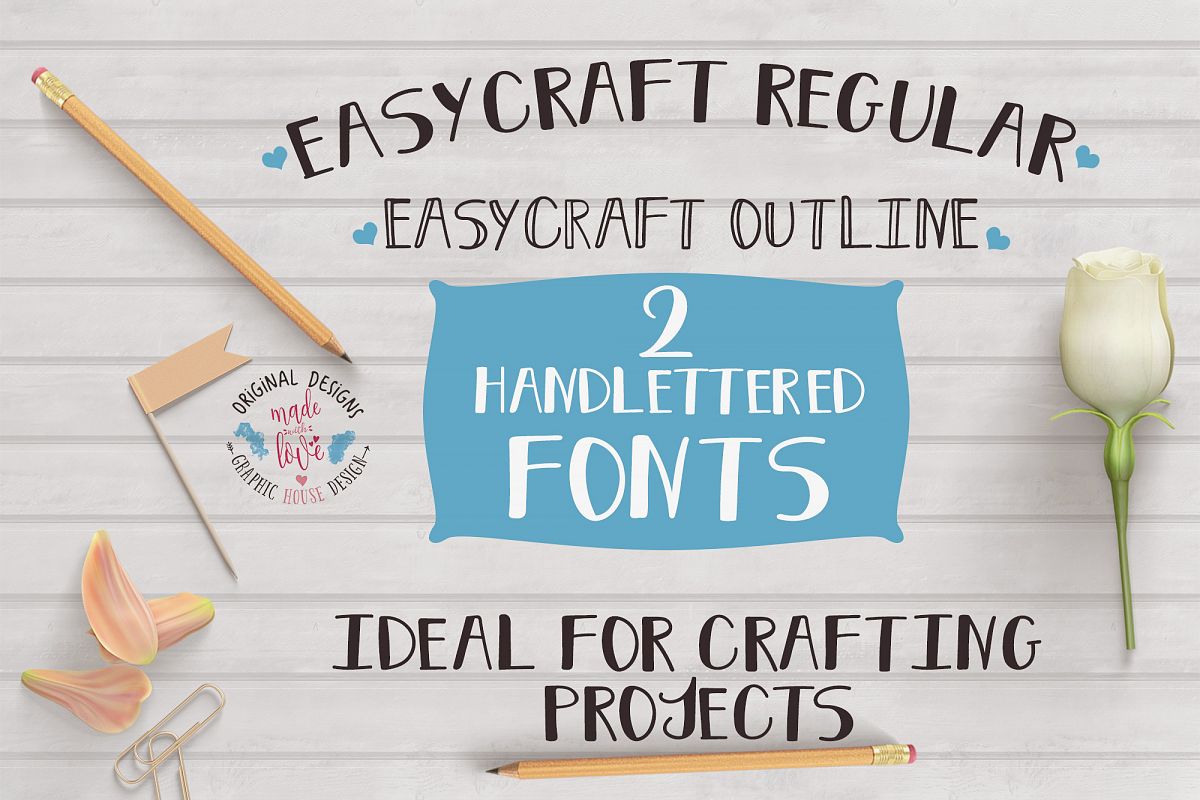
Easycraft Font
Easycraft
EasycraftOutline-Outline
Easycraft is a hand lettered Regular Modern Font with a tall x-height which comes into two versions:
Easytcraft Regular and EasyCraft Outline.
It contains Capital Letters from a-z and numbers 0-9.
It was created mostly for crafters that need an easy font to work with.
Easycraft Font